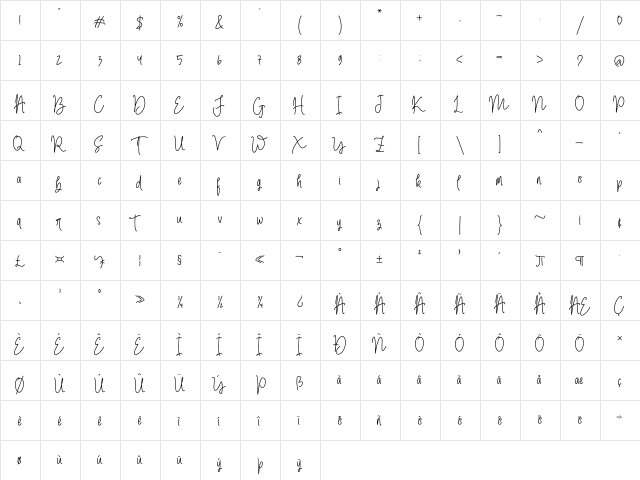
The Amstrong Regular
| Foundry | Atjcloth |
| Designer | Atjcloth |
Design Context for The Amstrong Typeface
The Amstrong offers clean, dependable letterforms without strong stylistic allegiance, making it a practical choice for designers who need flexibility.